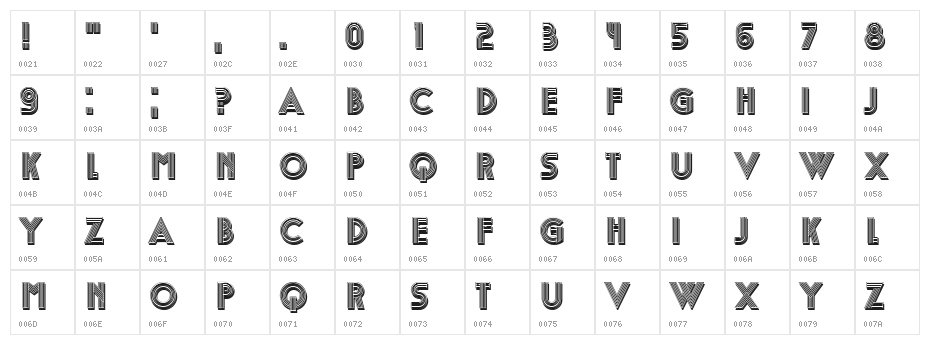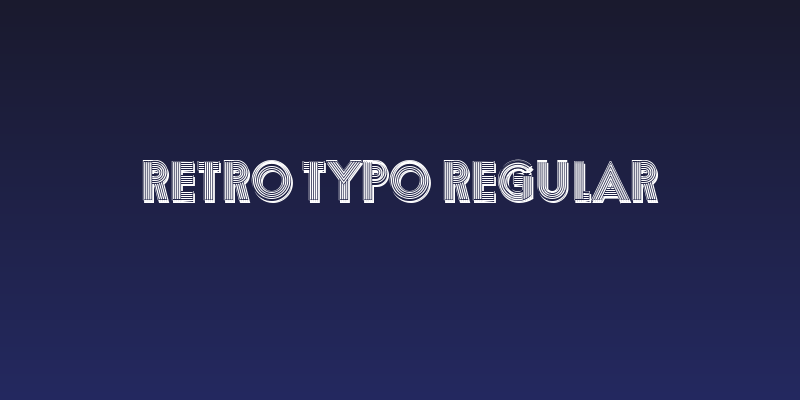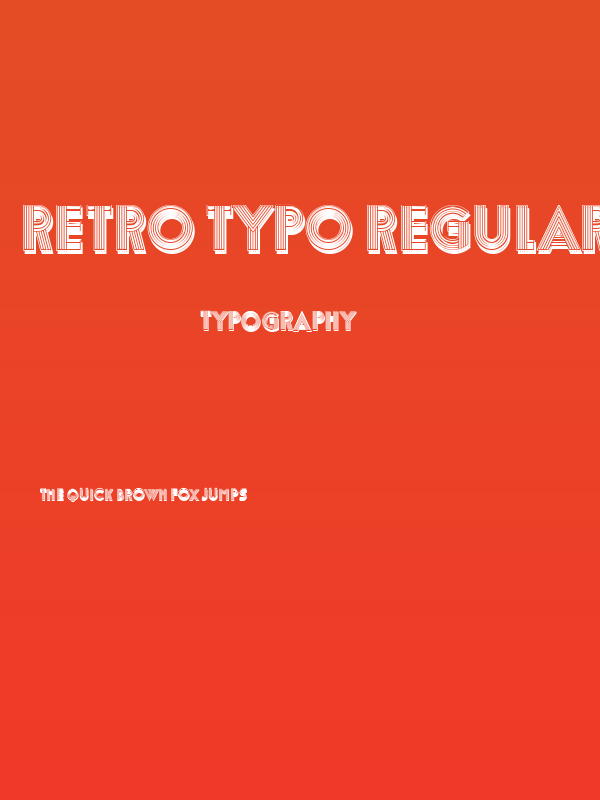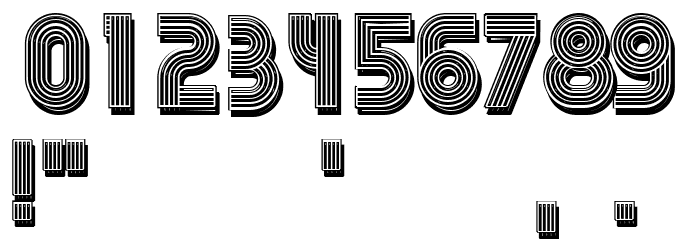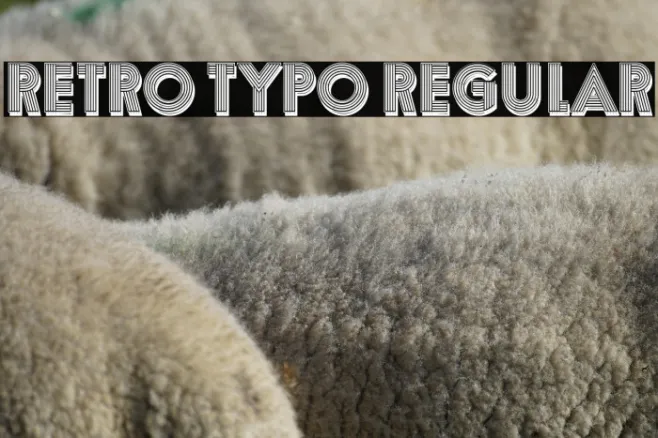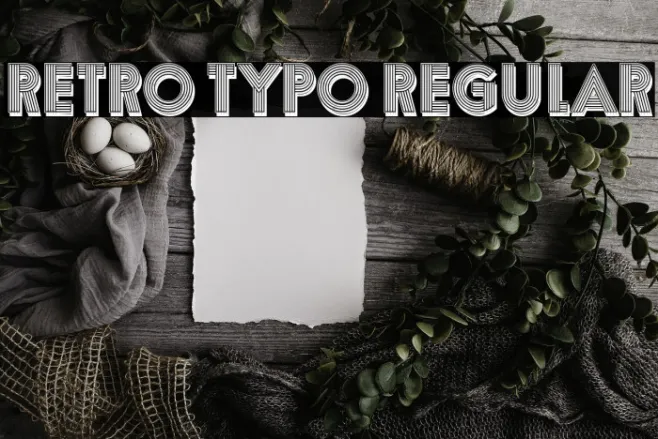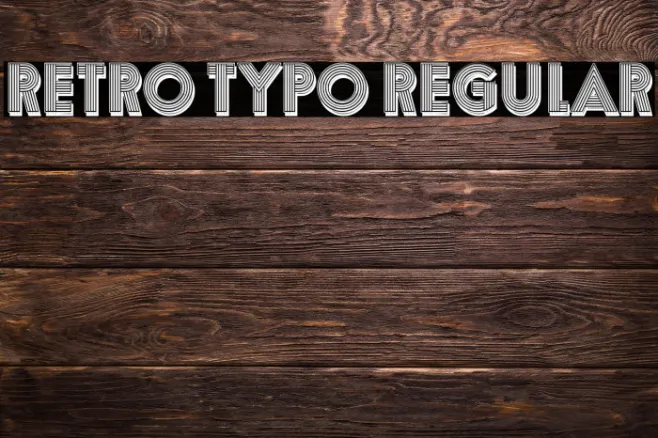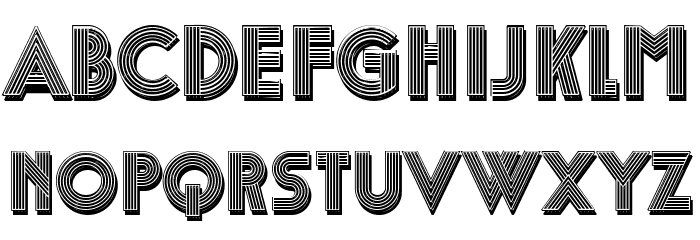
Retro Typo Regular Font
Retro Typo Regular Description
This font features a bold, geometric design with a distinct retro flair. Each character is composed of multiple parallel lines, creating a layered, three-dimensional effect. The uppercase and lowercase letters maintain a consistent style, emphasizing clean lines and sharp angles. The numerals and special characters follow the same aesthetic, ensuring a cohesive look across all elements. This font captures the essence of vintage typography with a modern twist, making it ideal for projects that require a nostalgic yet contemporary feel.
| Overall Style | Retro |
| Proposed Projects | Ideal for vintage-themed posters, retro branding, album covers, and decorative signage. |